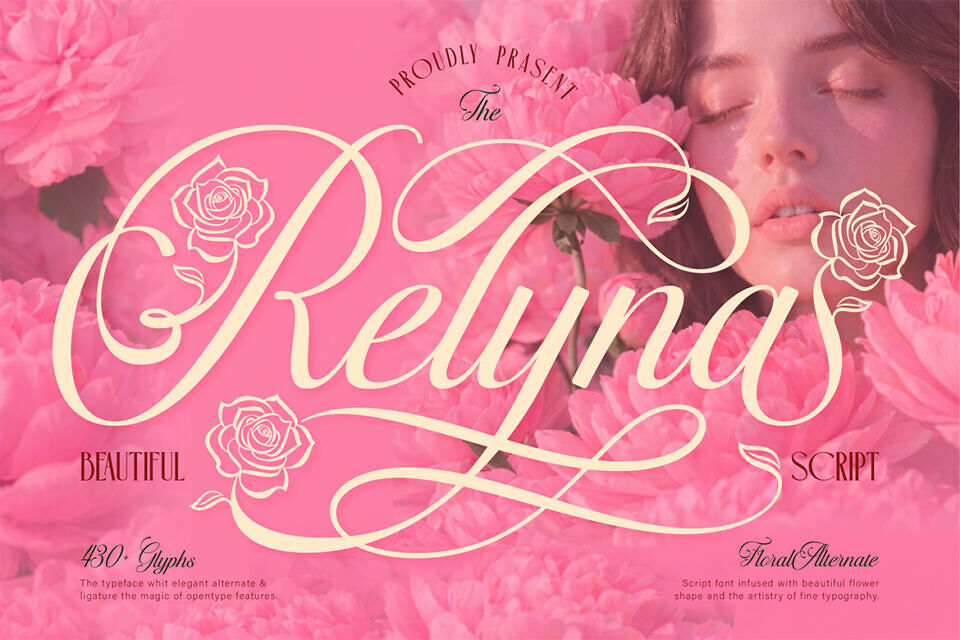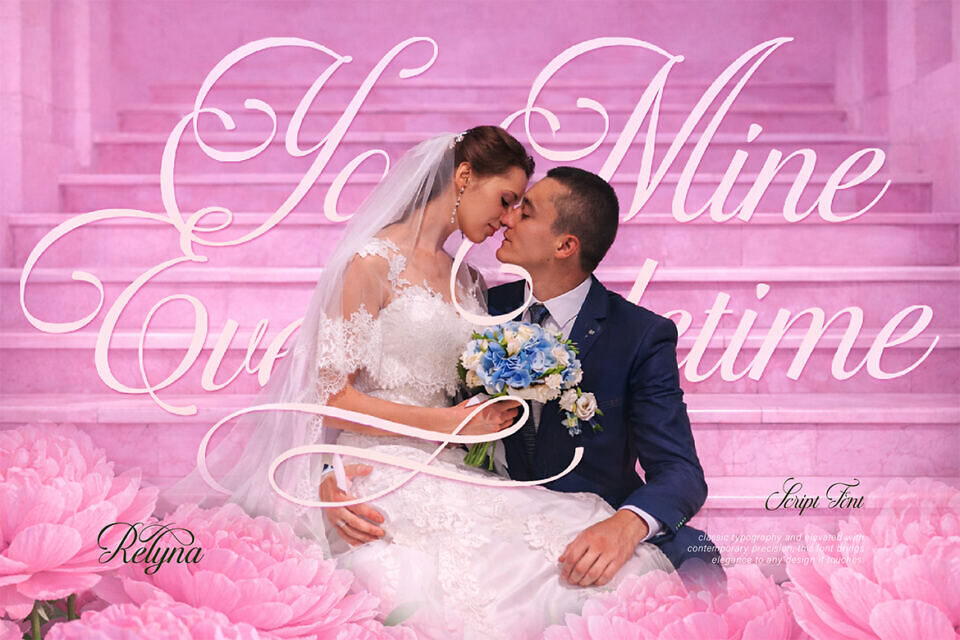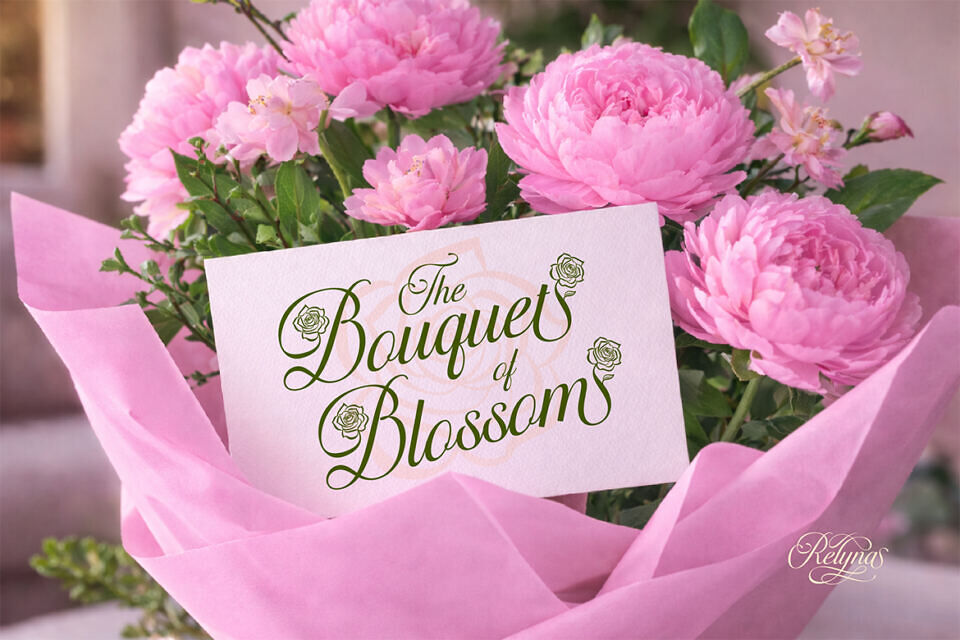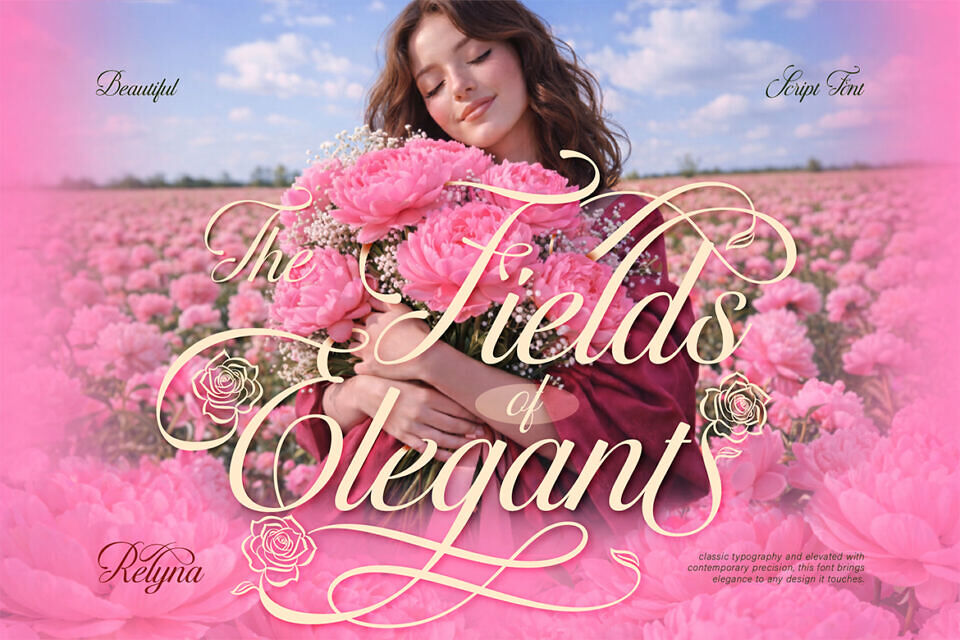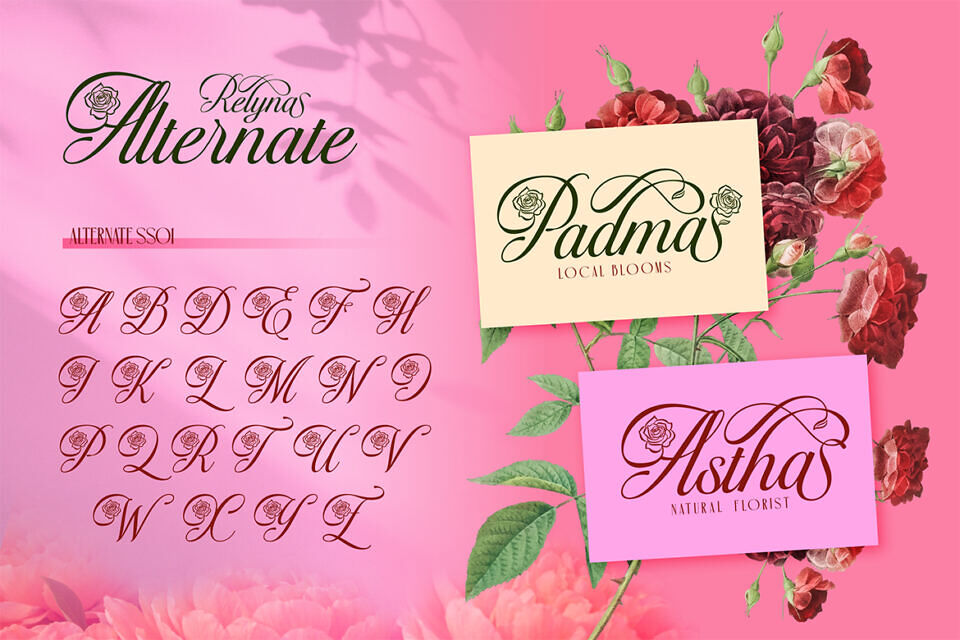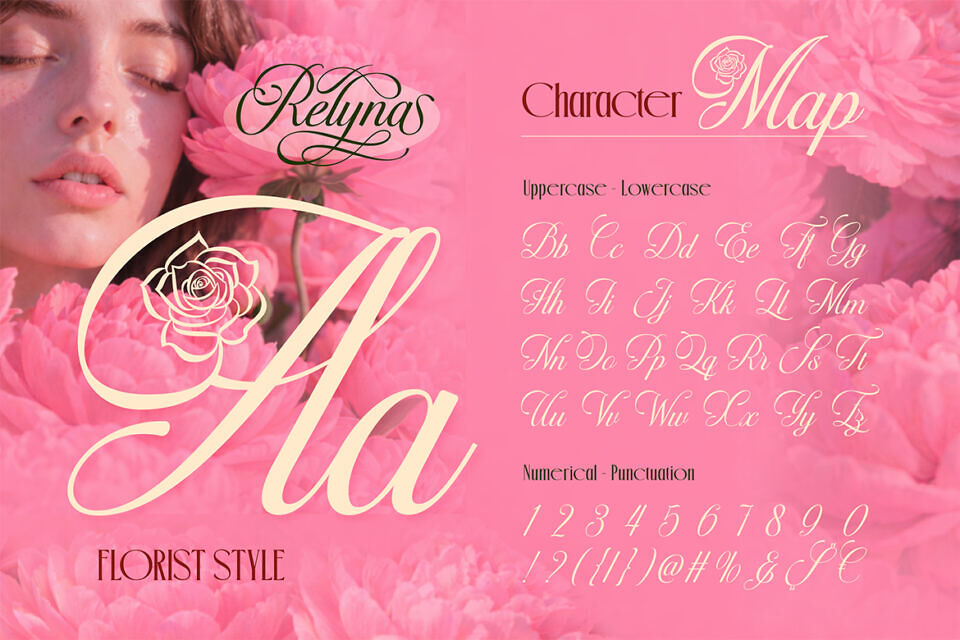
Relyna is a beautiful script font inspired by blooming flowers and romantic moments. It comes with graceful swashes, soft curves, and unique floral alternates that make your design look more elegant and artistic. This font is designed to bring a feminine, luxurious, and timeless feel to any project. The flowing letterforms create a smooth and natural handwriting style, while the decorative alternates add a special floral touch.
Ideal for elegant designs, this style suits: wedding stationery, beauty and skincare brands, perfume labels, florist logos, high-end fashion branding, inspirational social media posts, luxury product packaging, and romantic typographic projects.